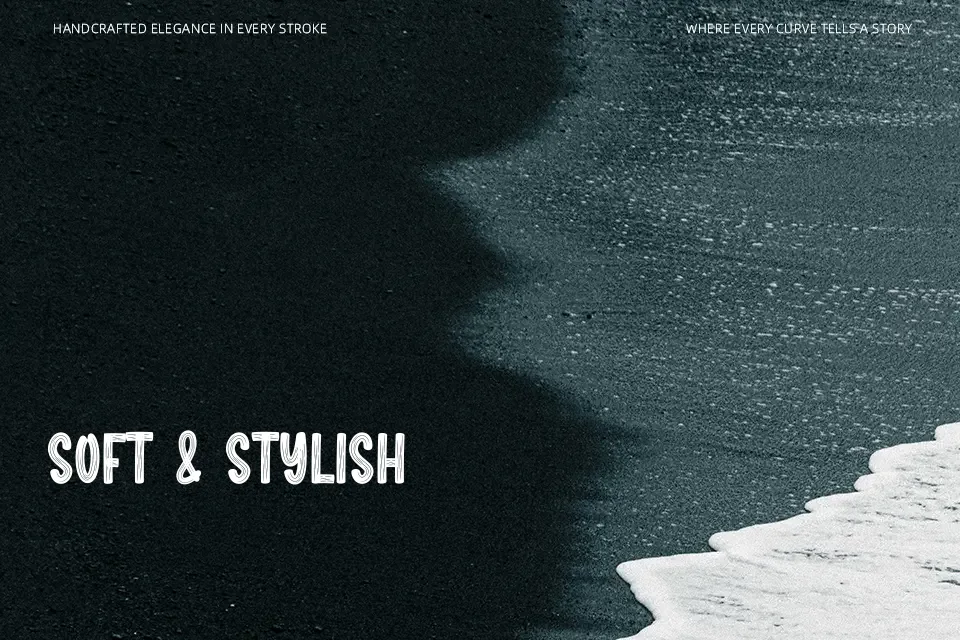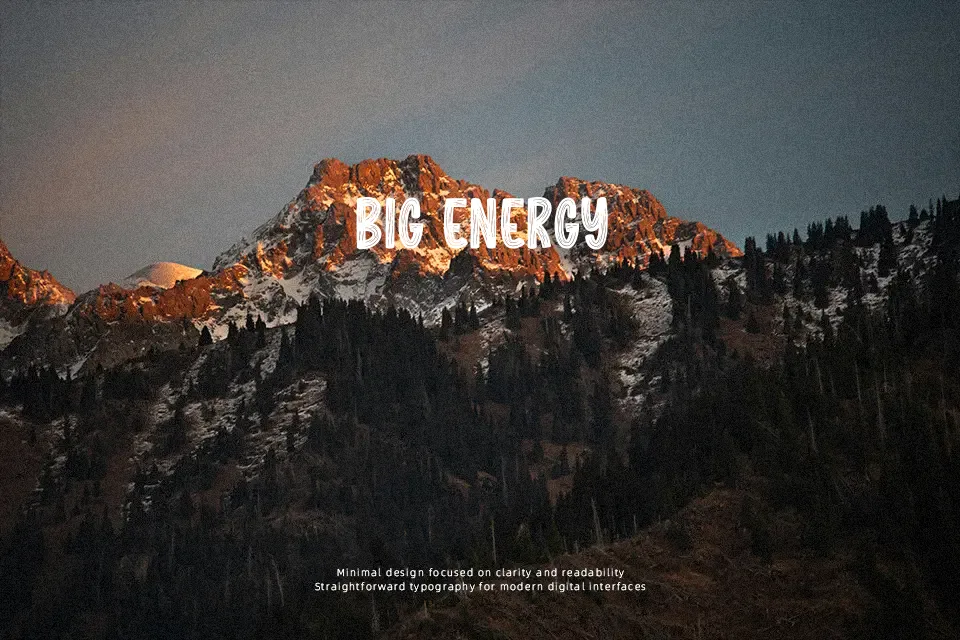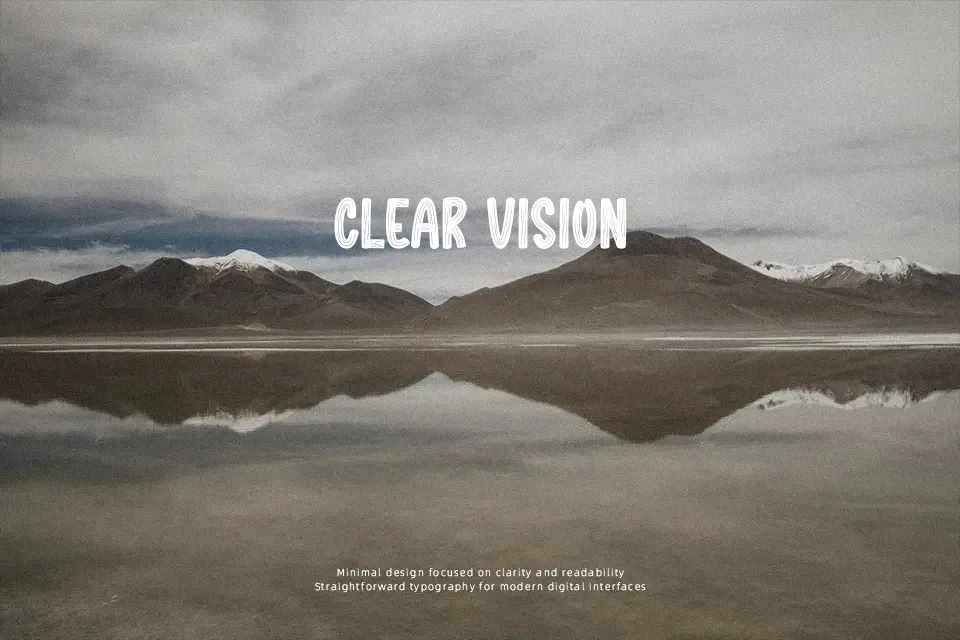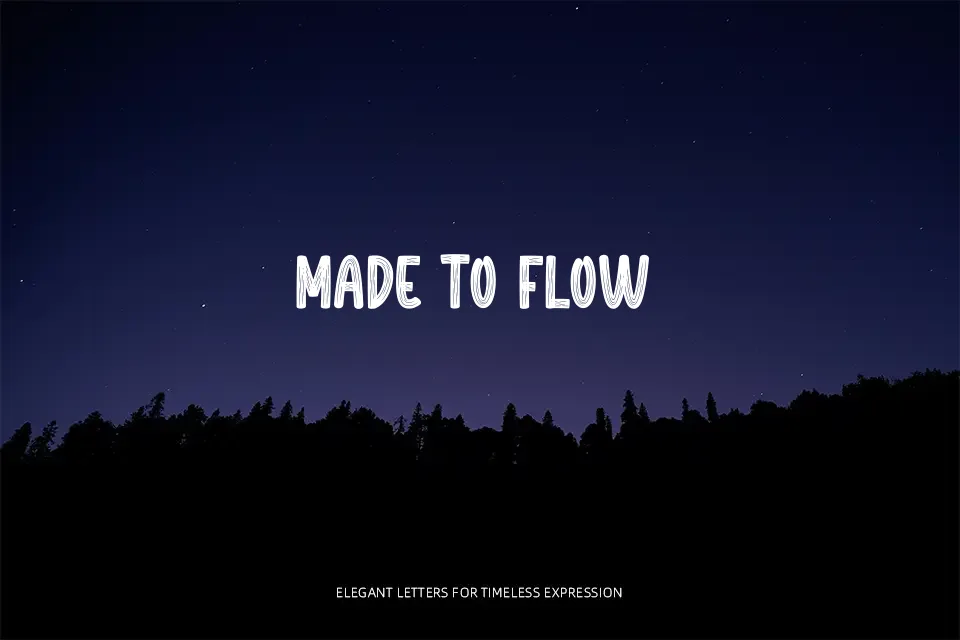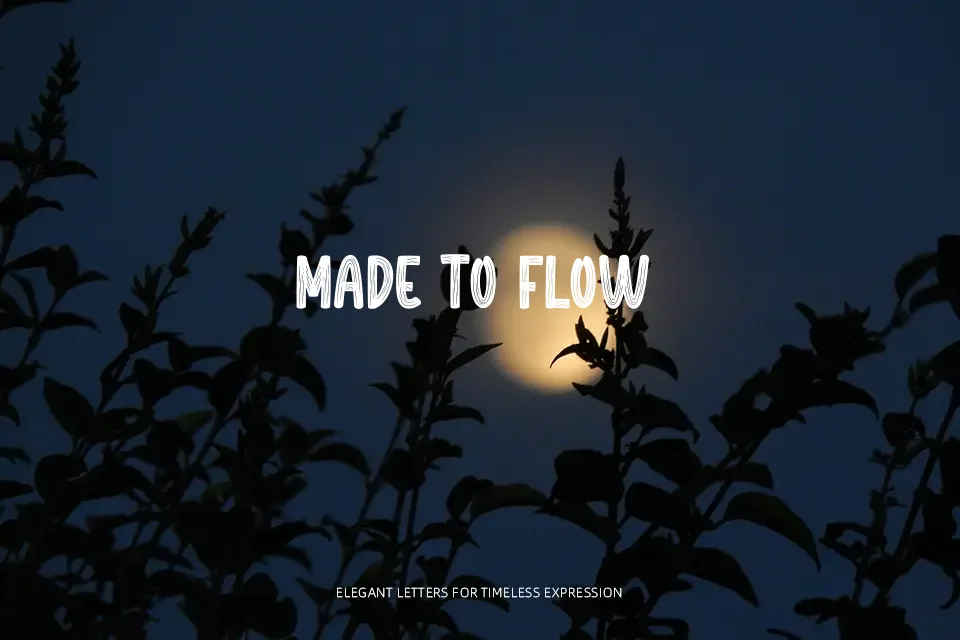
Origins Christmas Font
Origins Christmas Font works best as a decorative display face for short, prominent text. Its handwritten letterforms use flowing strokes and varied proportions, creating an informal rhythm that is more expressive than neutral. Spacing appears most comfortable when the type is given room in a headline, invitation title, or social post. The design can add a personal-looking accent to seasonal packaging and greeting layouts. At smaller sizes, the detailed shapes and connected movement may become harder to scan quickly. It is a practical choice for a few words of emphasis rather than paragraphs, captions, or information-heavy layouts.
Best For: holiday invitation titles,seasonal poster headlines,Christmas social media graphics,gift packaging labels
Perfect for christmas, headline, and invitation, with a creative and display style.